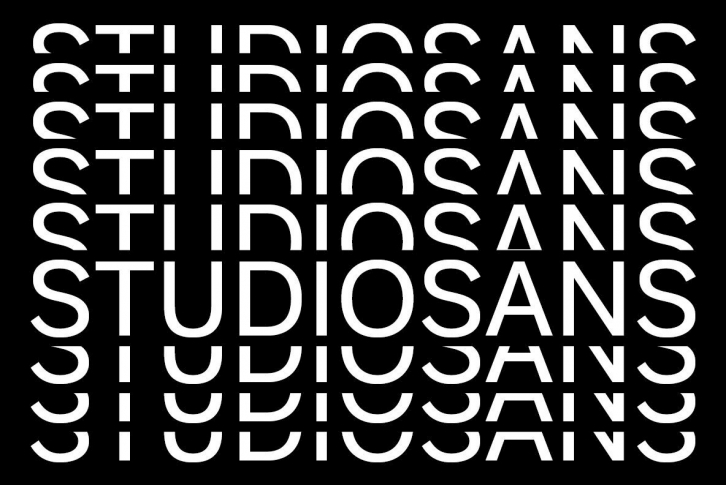
StudioSans — is a modern representative of the class of sans-serif fonts inspired by the traditional Swiss design and typography of the mid 20th century. This is a minimal, clean and open font family with friendly forms. Focuses on functionality, has a high x-height and short ascender and descender elements. This is combined with soft circles and high legibility of characters contributing to comfortable reading.
The family contains six weights from ExtraLight to ExtraBold. Each of them has in its arsenal more than 450 glyphs and knows more than 50 languages. Support for OpenType Features focused on the Old style Figures (including signs of currencies and interest), Case-Sensitive Forms, Standards and Discretionary Ligatures, Slashed Zero and Etc.